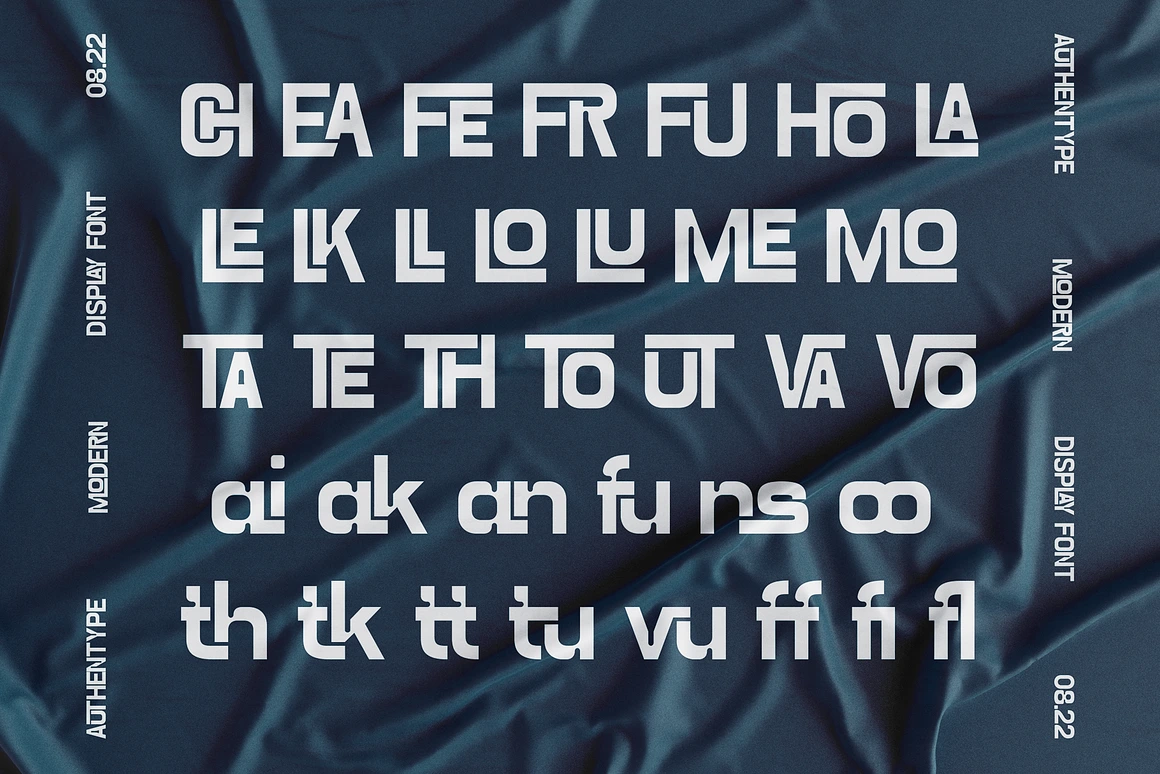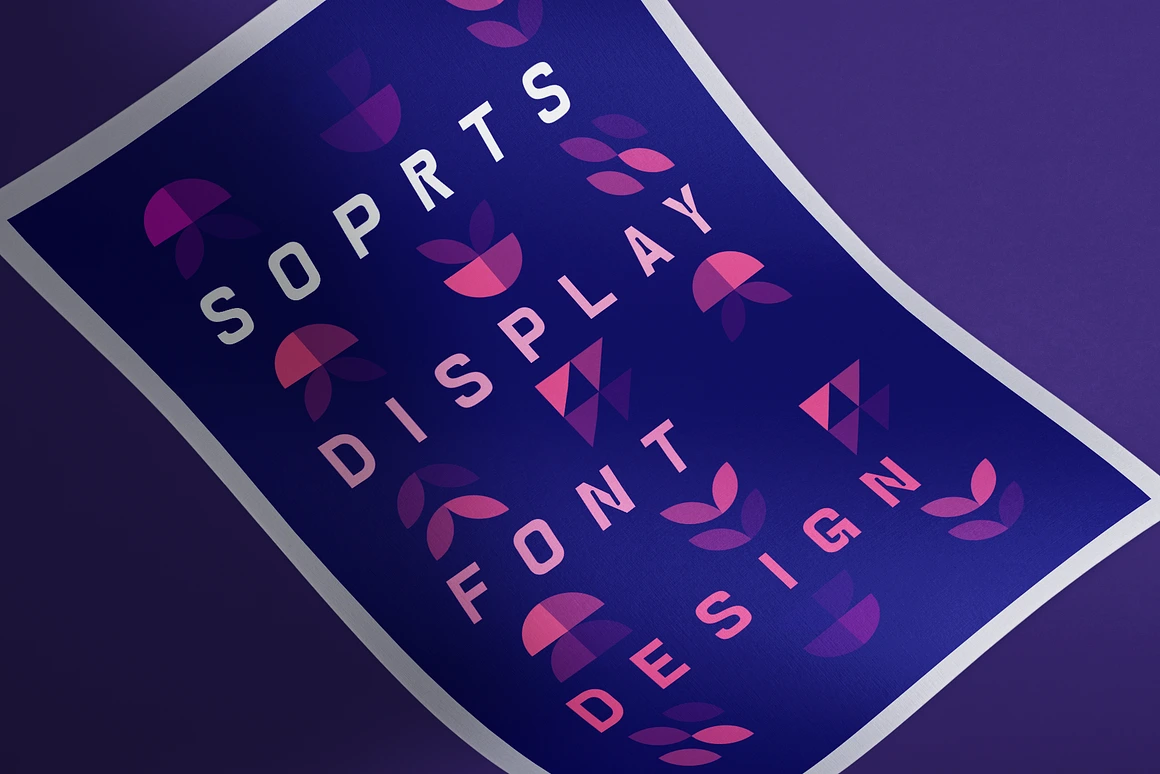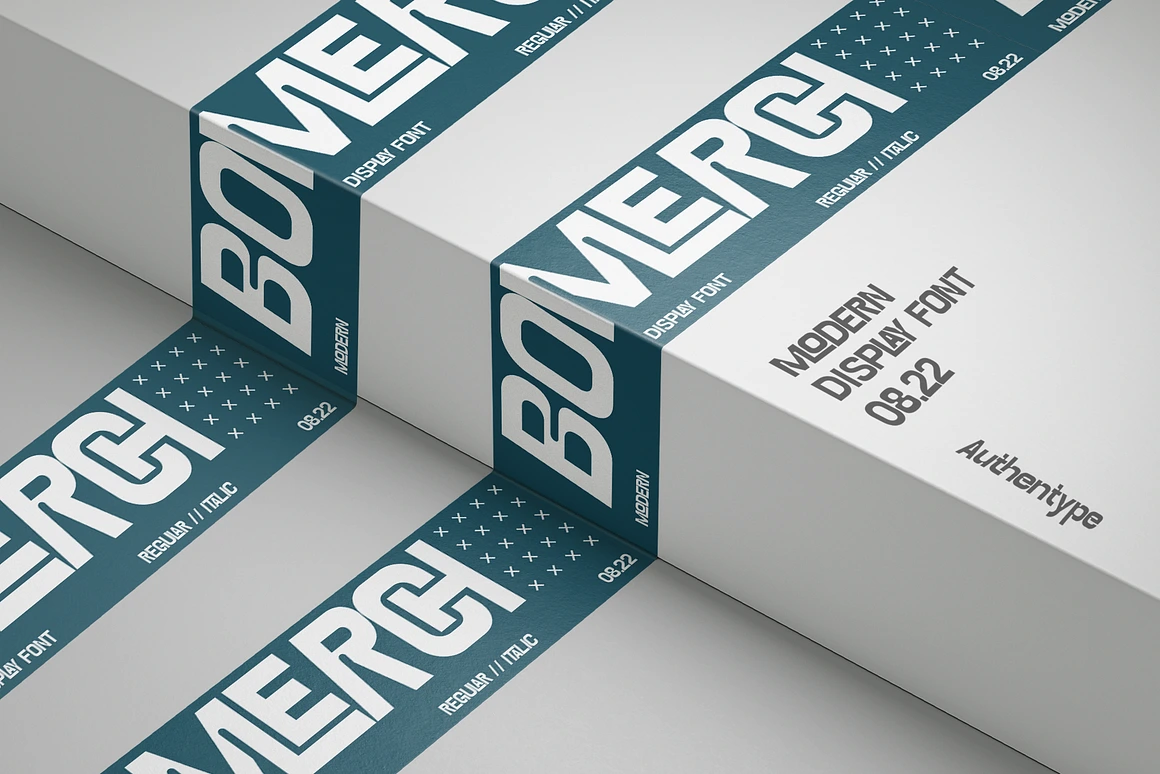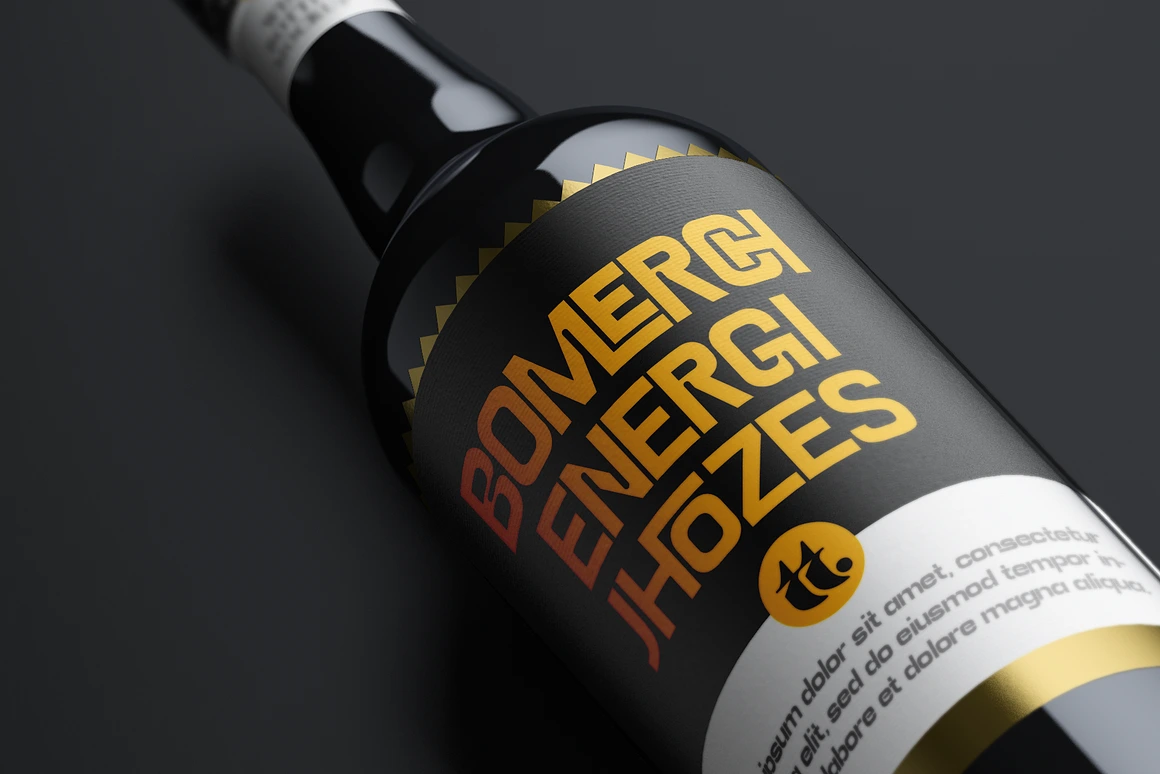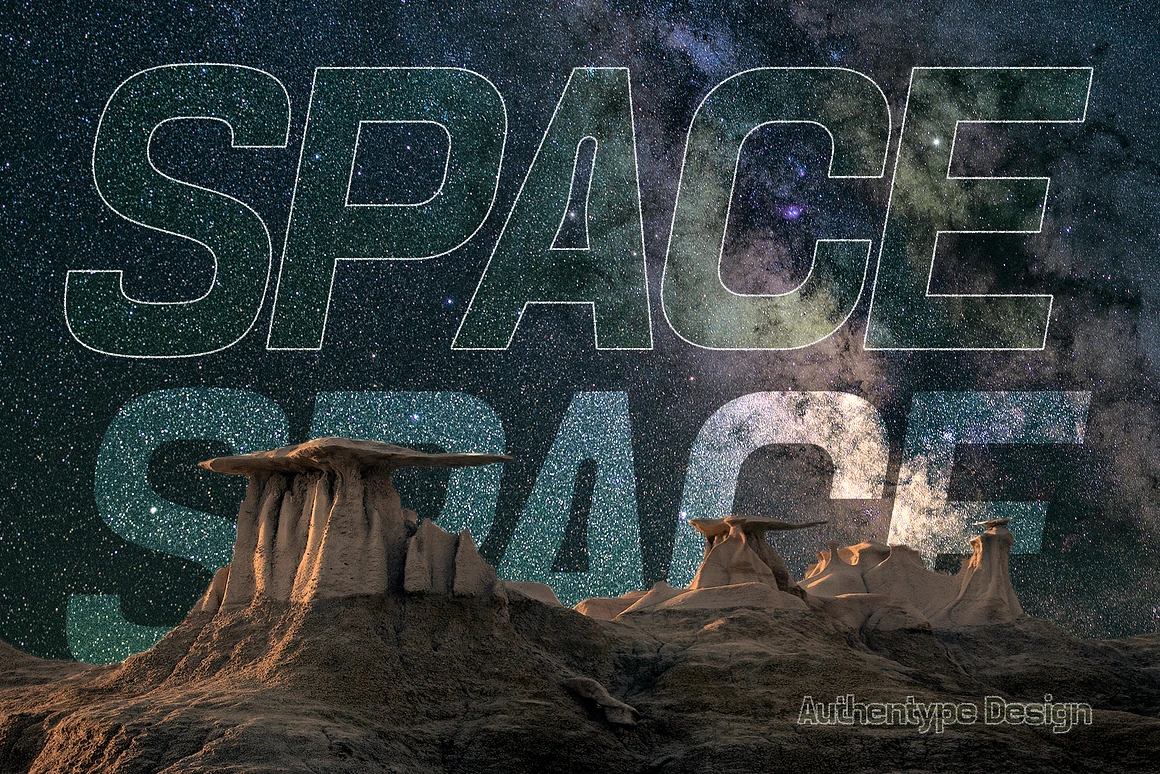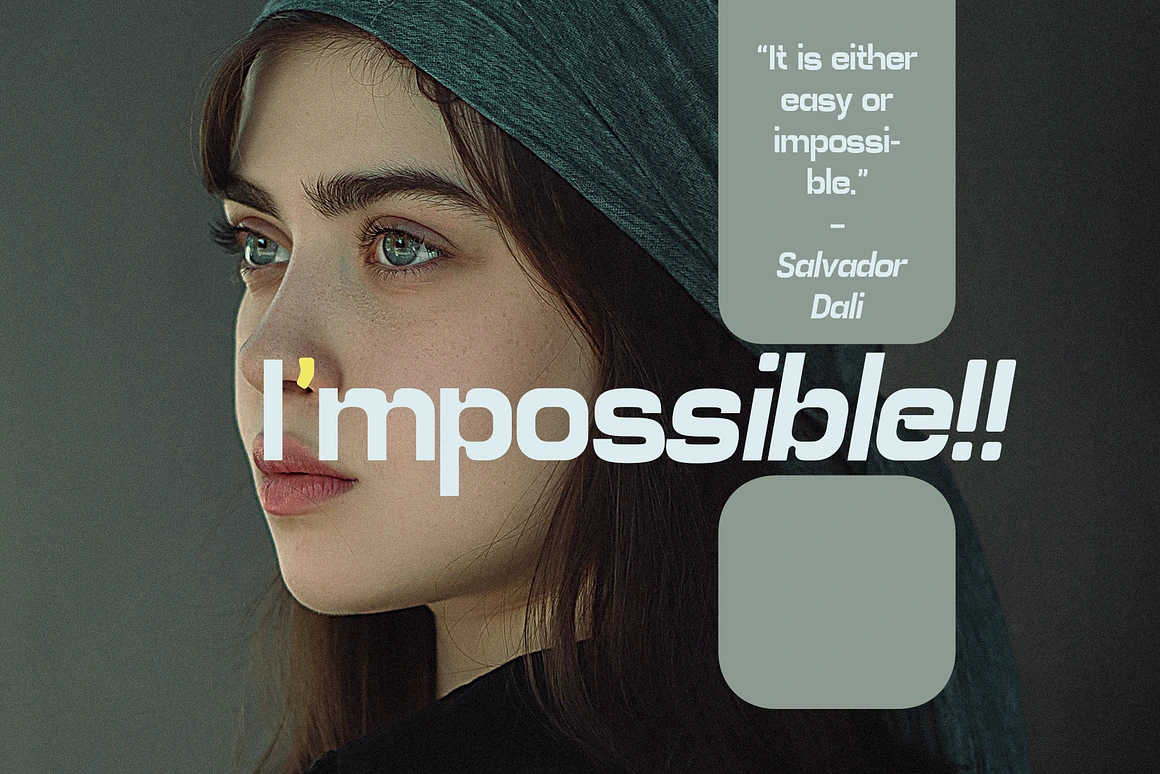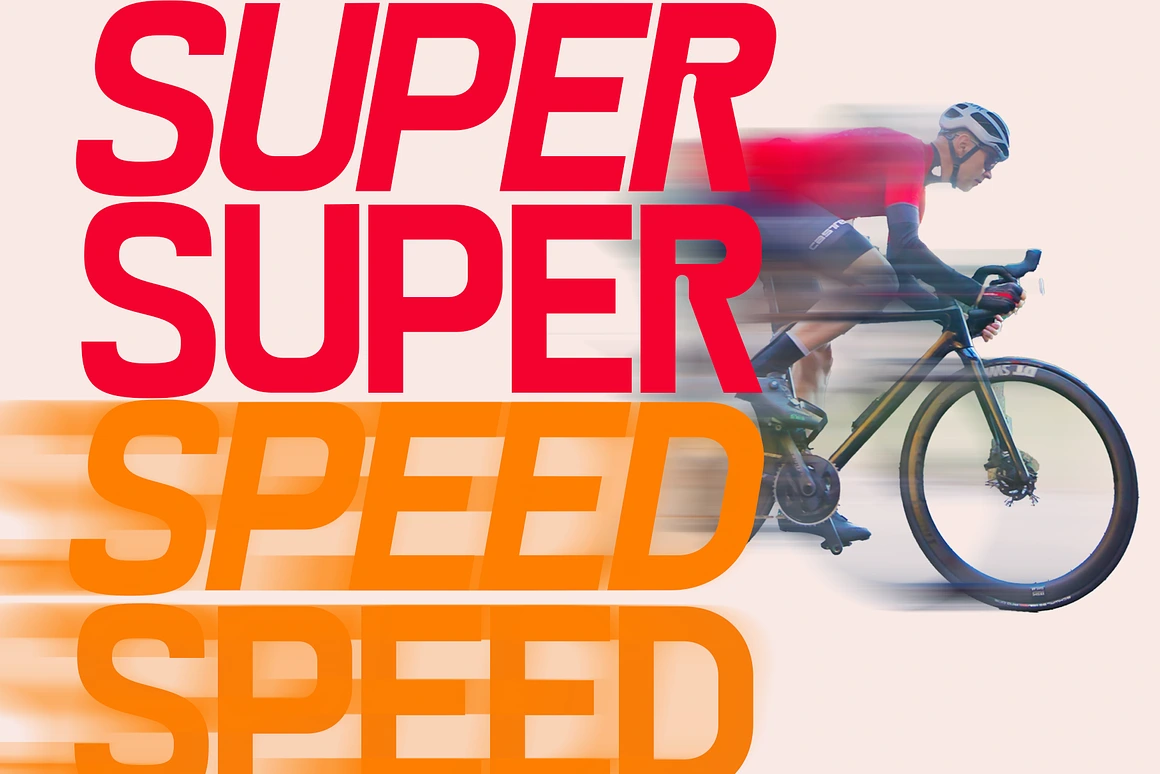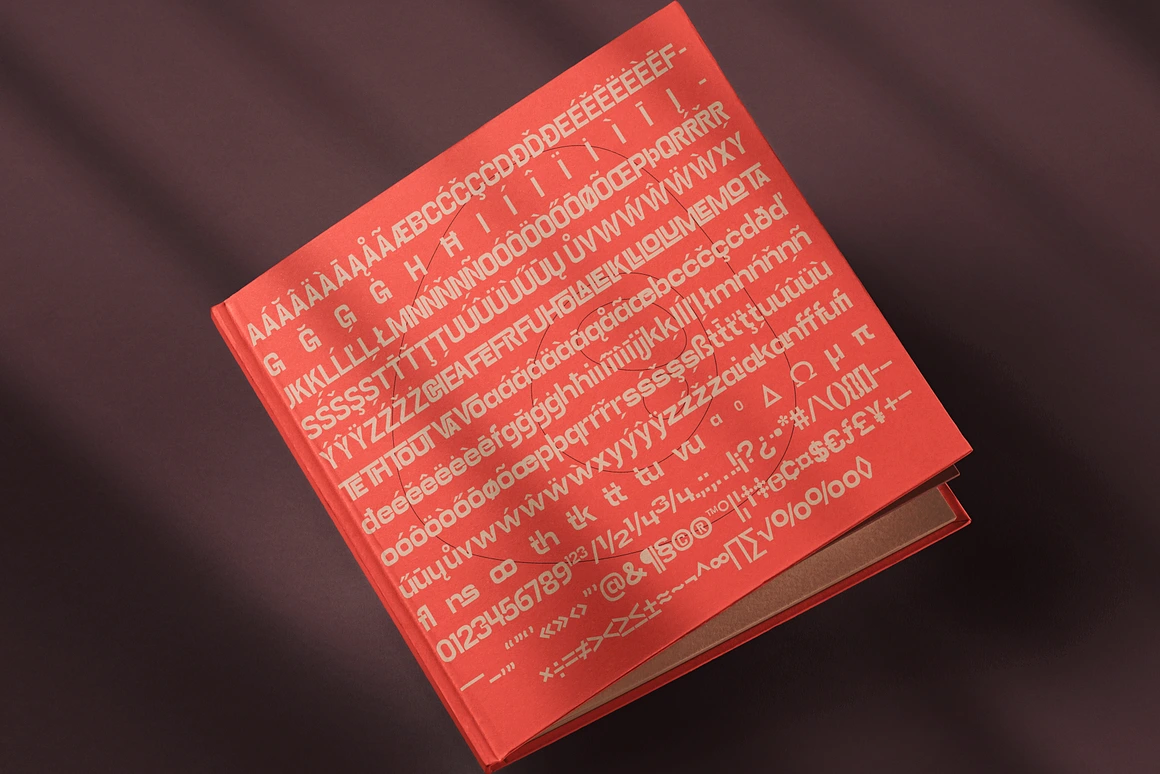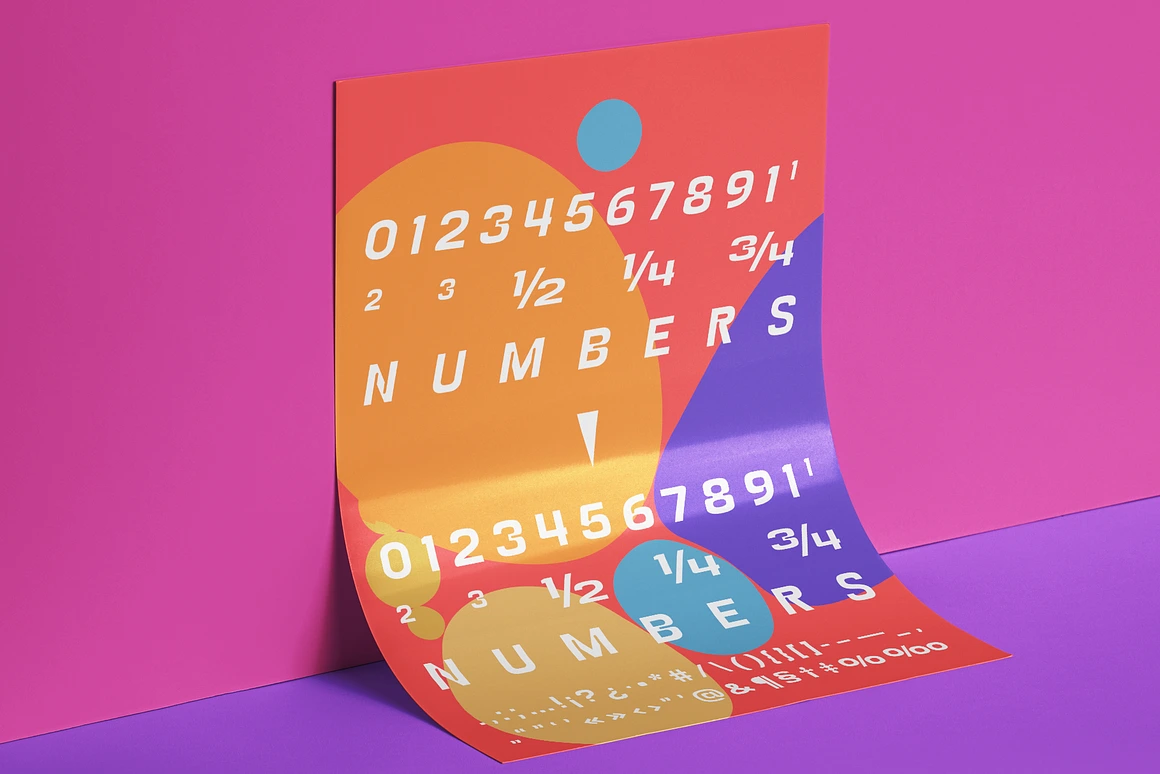
Bomerch Modern Display Font
Bomerch Modern Display Font is a modern display font that includes Regular and Italic. This font is suitable for vibrant, energetic and bold designs such as sports poster designs, music posters, branding, t-shirts, prints, business cards, logos, posters, t-shirts, photography.
Features
* Standard uppercase and lowercase glyphs
* Numbers, a wide range of punctuation marks
* Lowercase letters
* Fonts include multilingual support for; ä ö ü Ä Ö Ü ß ¿ ¡ ____